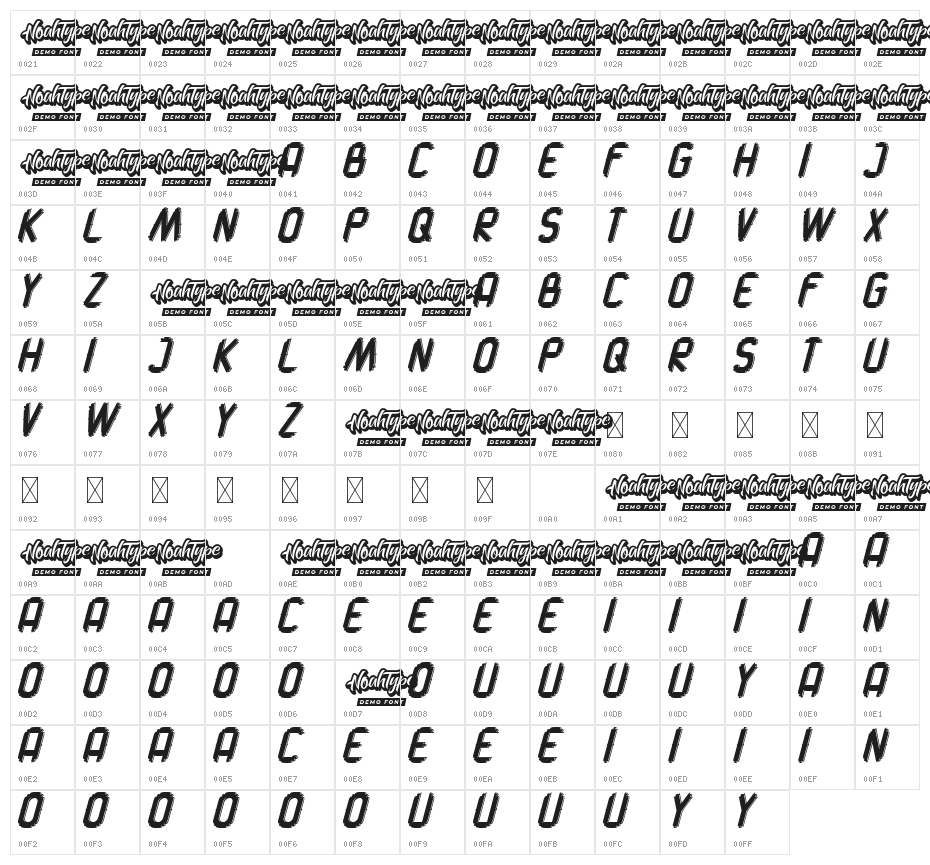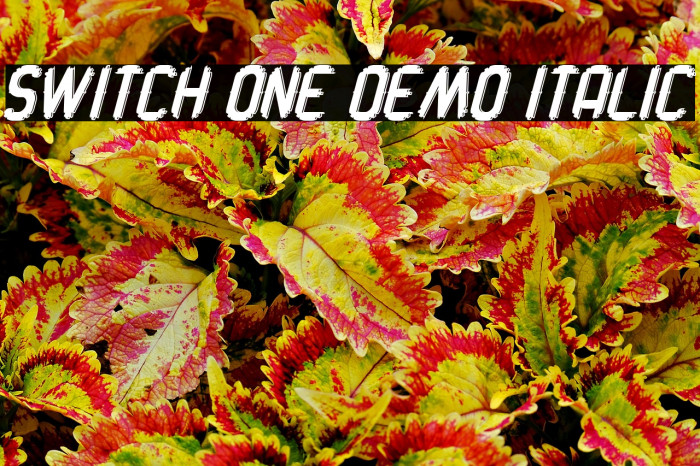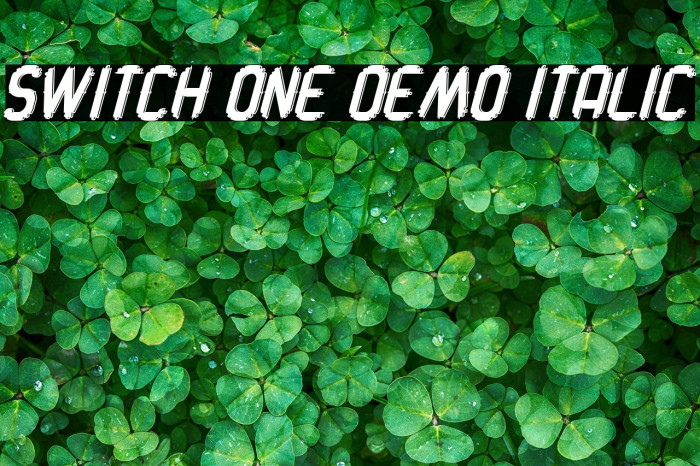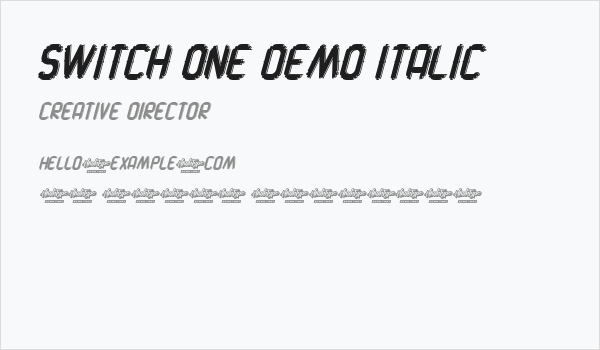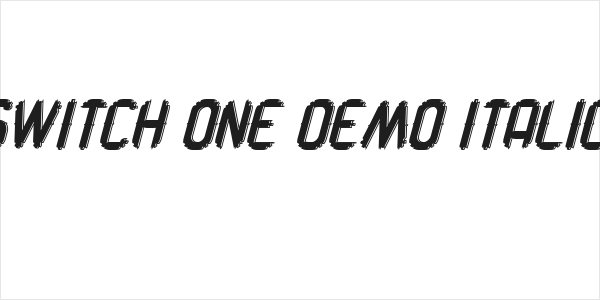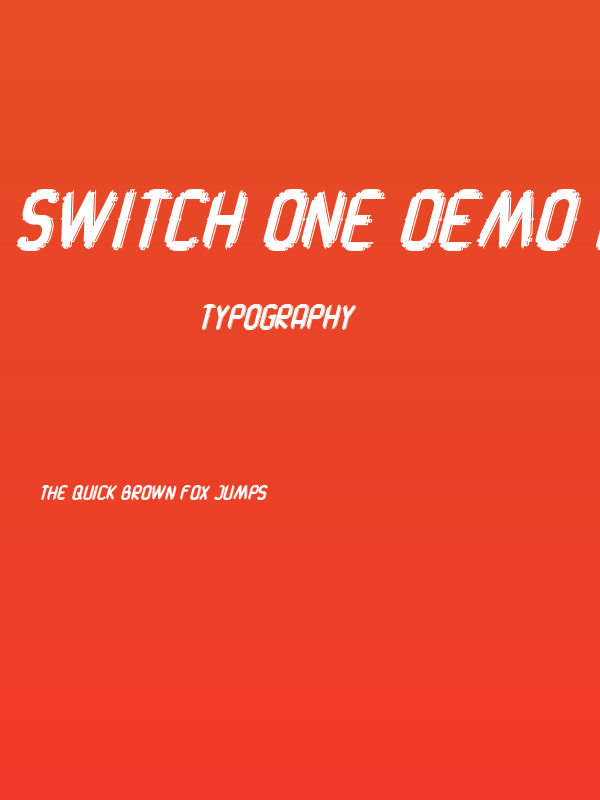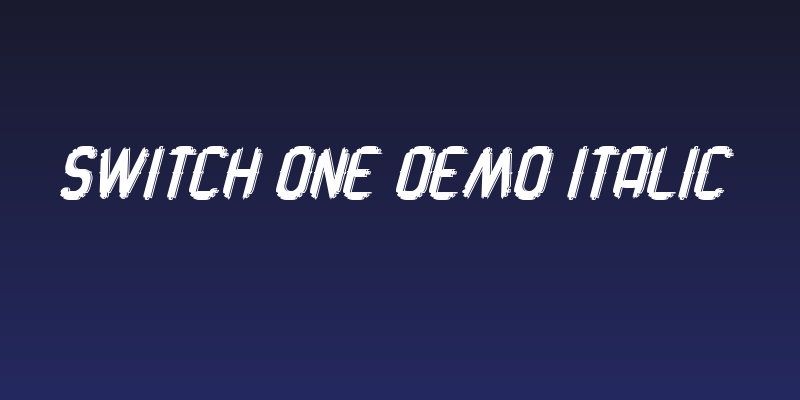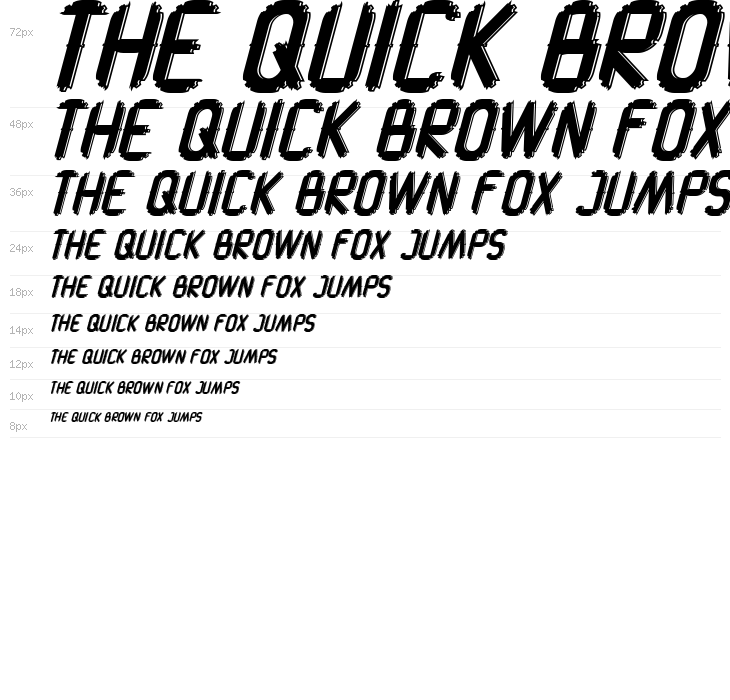
Switch One Demo Italic Font
Switch One Demo Italic Description
This font features a bold, italicized style with a dynamic and energetic appearance. The characters are designed with a brush-like texture, giving them a hand-drawn feel. The strokes are thick and consistent, creating a strong visual impact. The uppercase letters are angular and slightly condensed, while the lowercase letters maintain a similar style, ensuring readability. The numbers and special characters follow the same design principles, making them cohesive with the alphabet. This font's unique style makes it suitable for projects that require a bold and artistic touch.
| Proposed Projects | Ideal for branding, posters, headlines, and any design that needs a bold, artistic flair. |